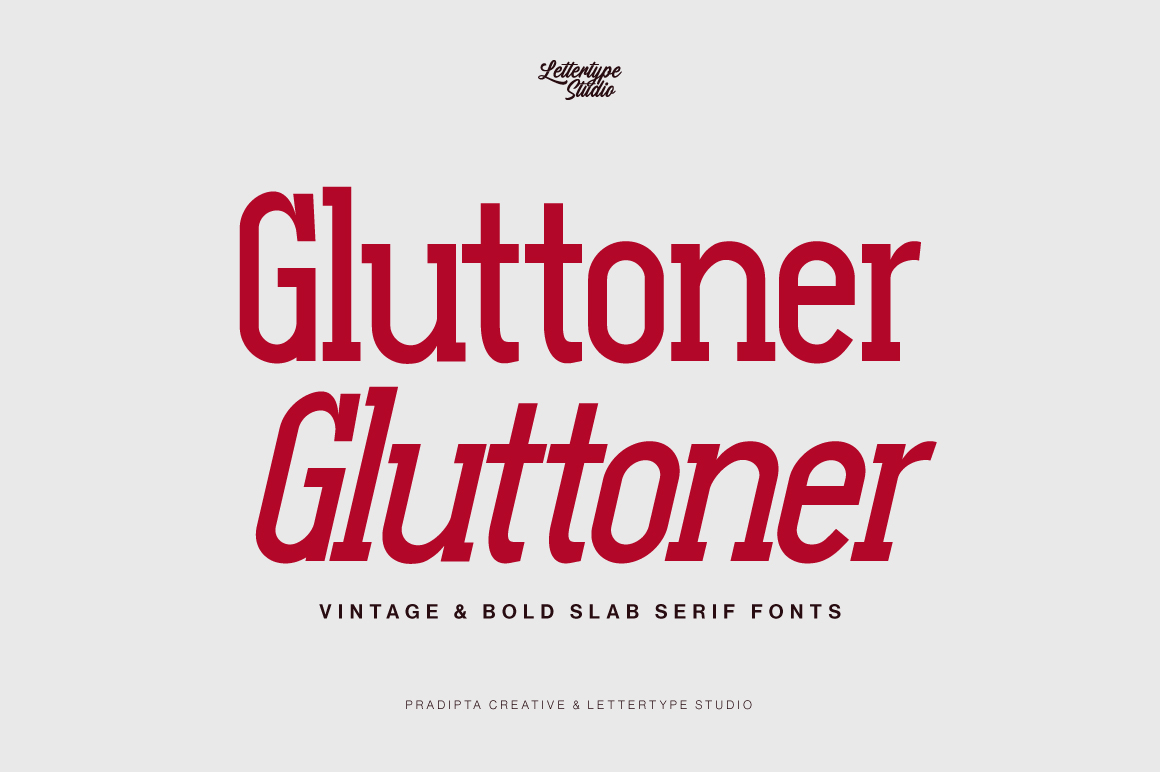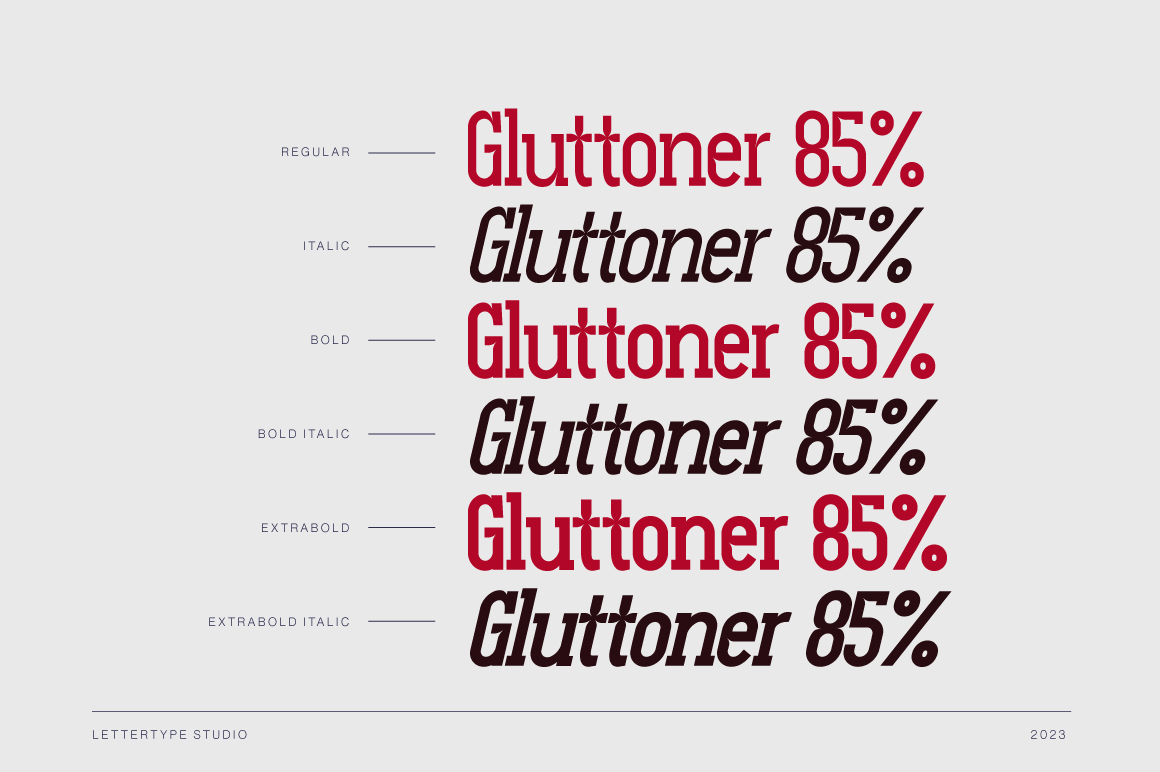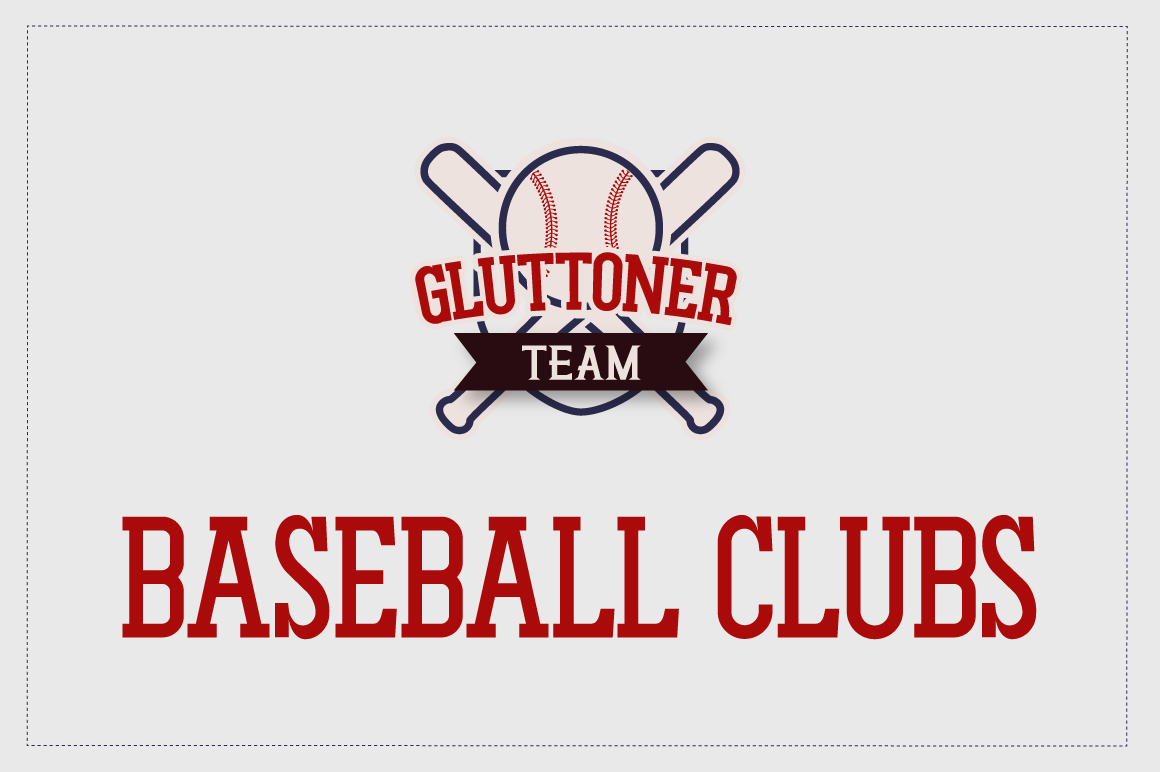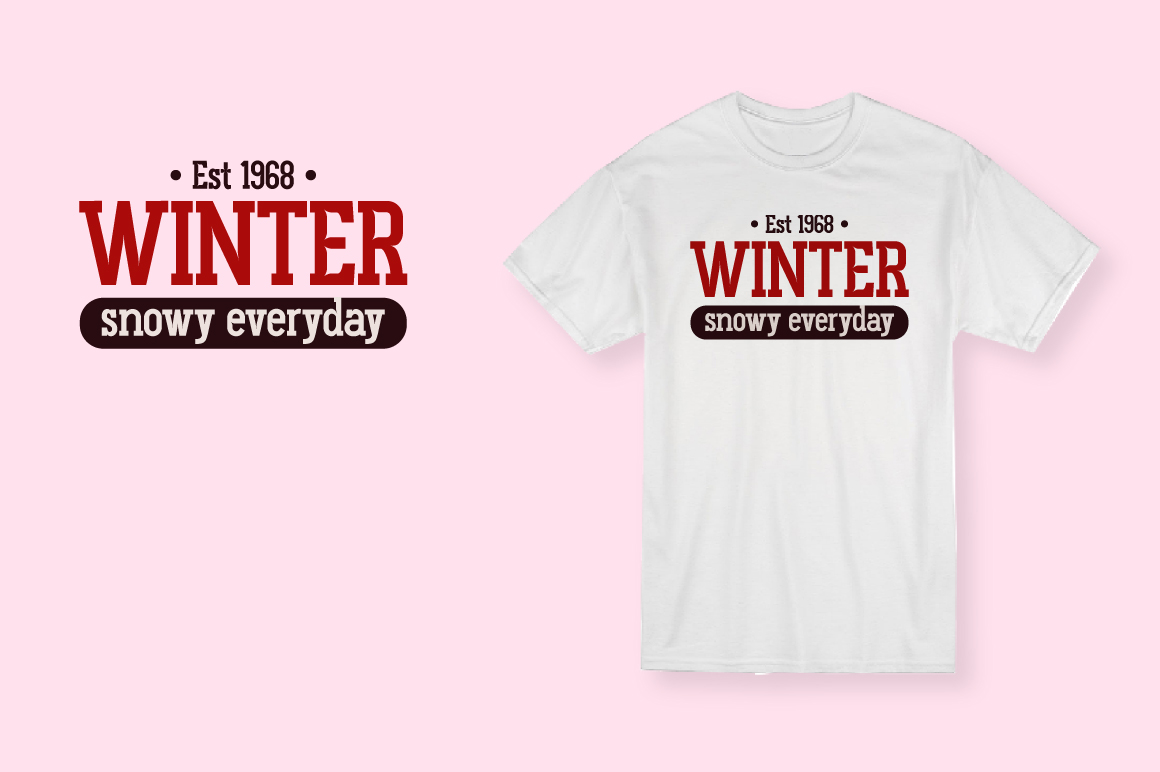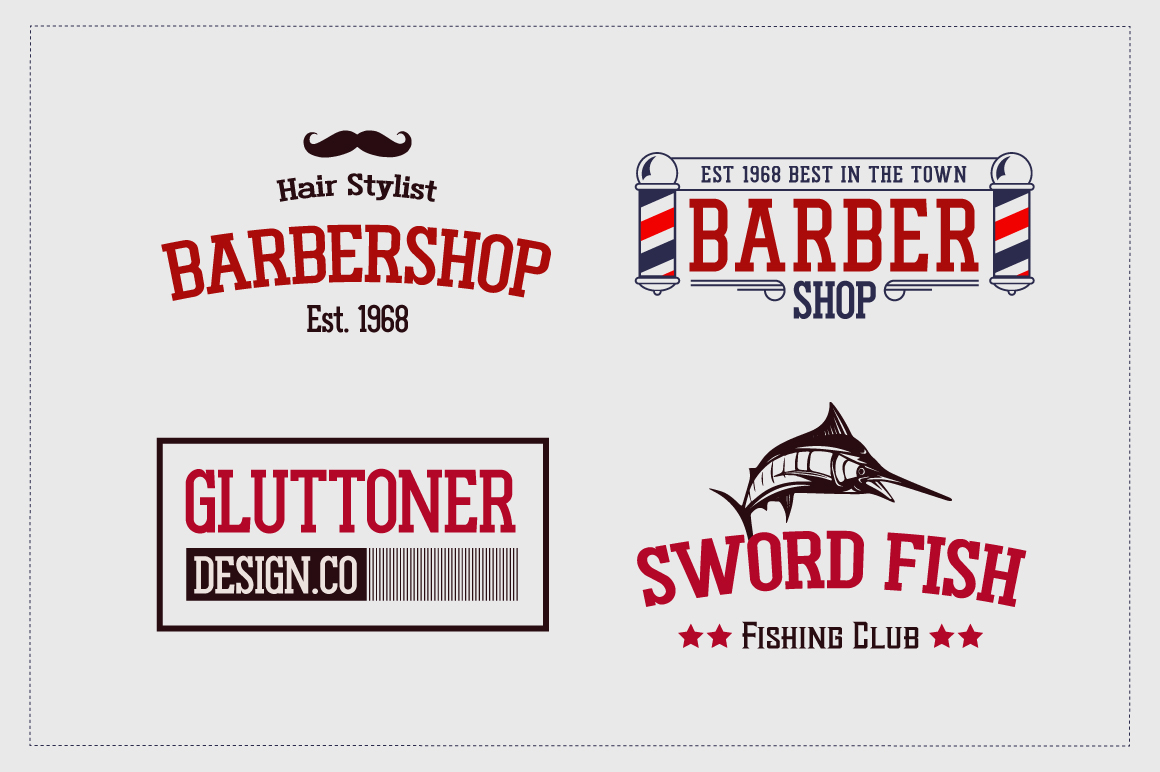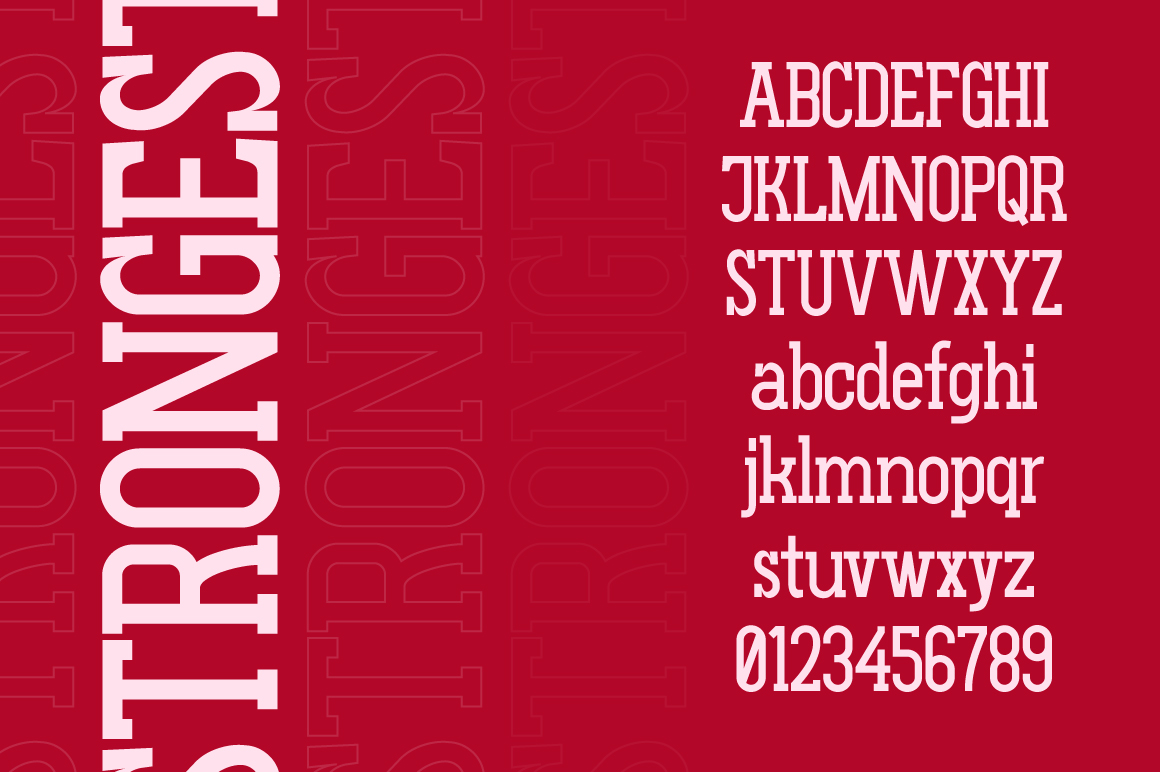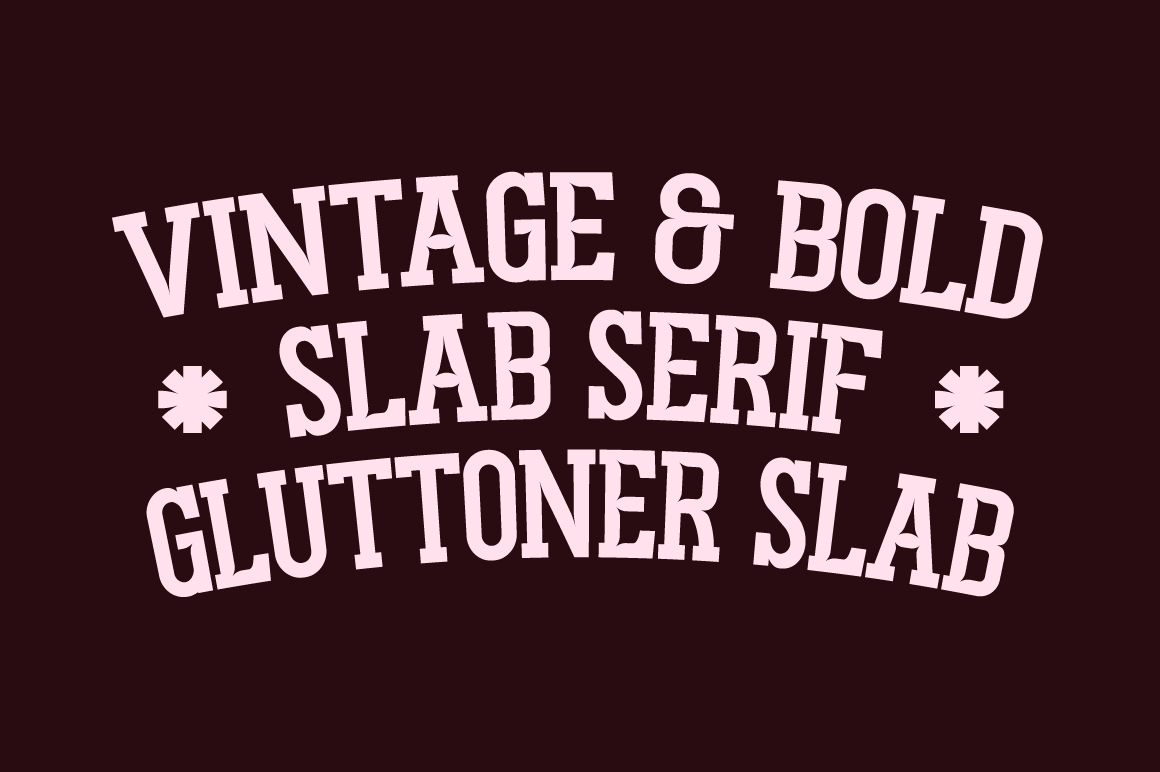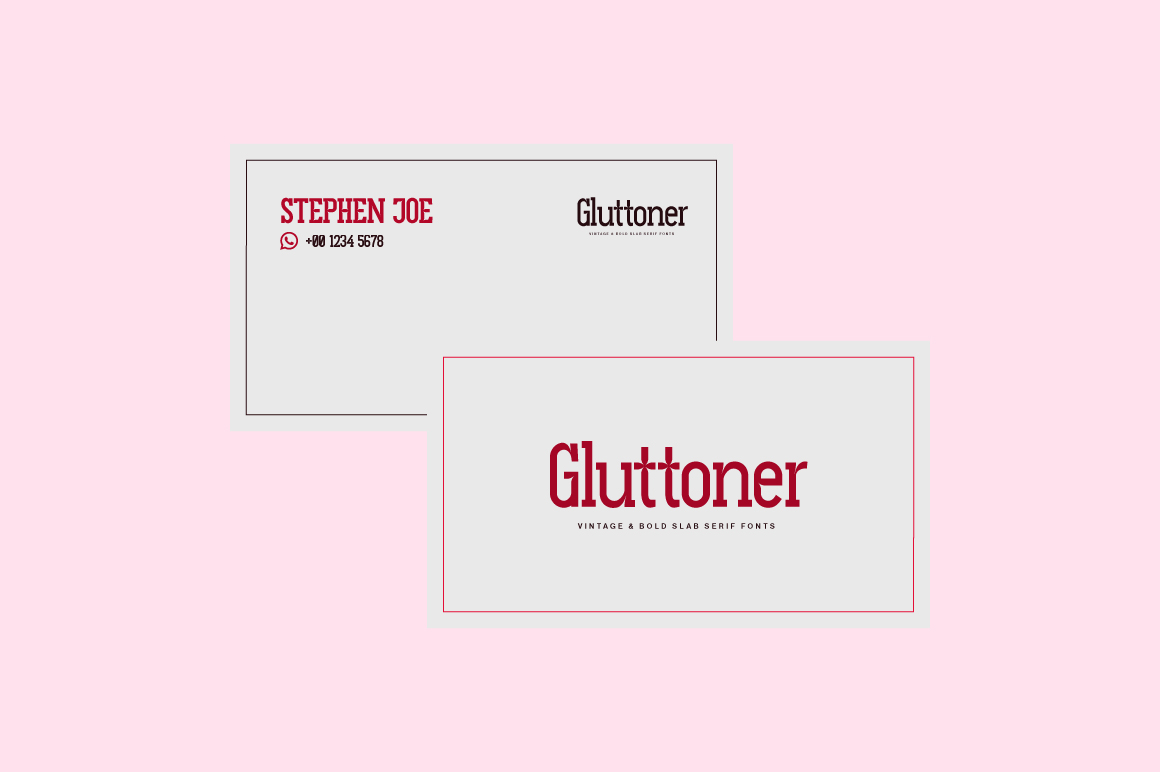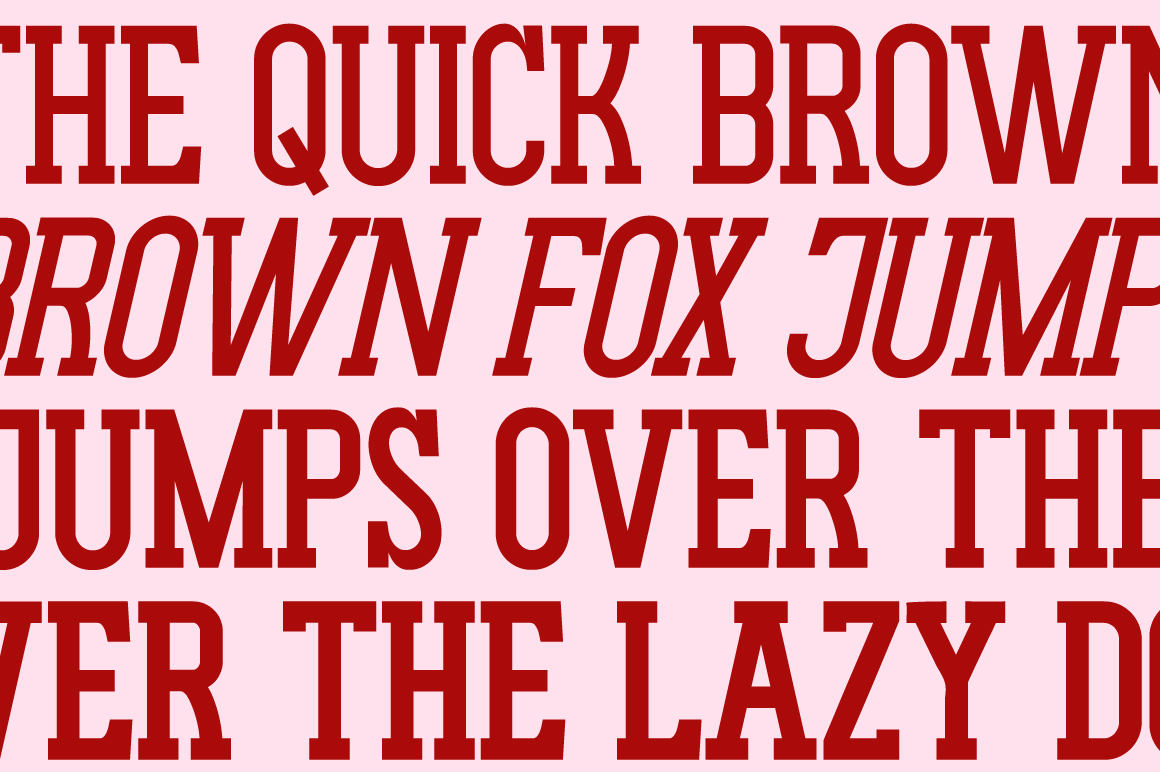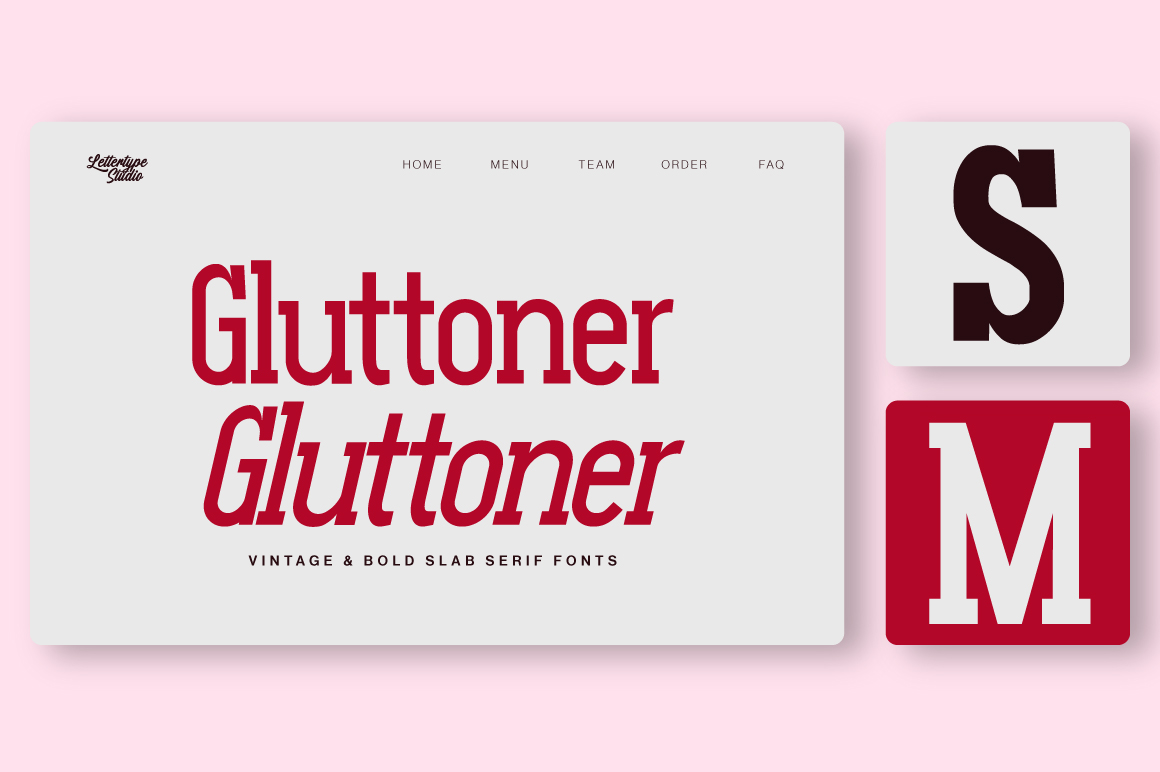
Gluttoner Slab is a bold and vintage slab serif font family inspired by urban lettering and classic signage design. Its powerful shapes and heavy contrast give a strong, confident presence to any layout while maintaining timeless appeal.
Perfect for branding, apparel, posters, and editorial design, Gluttoner Slab combines modern energy with a retro foundation. With multiple weights and styles, it’s built for designers who want versatility, personality, and impact in every project.
Gluttoner Slab